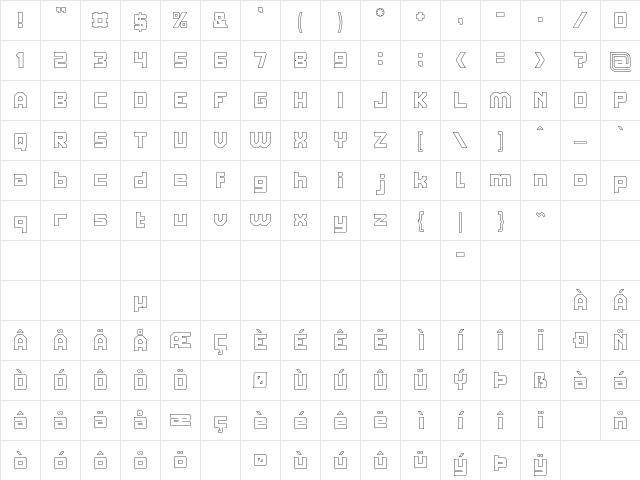
ELITE MIND-Hollow Regular
Design Context for ELITE MIND-Hollow Typeface
ELITE MIND-Hollow takes a measured approach to typography — its balanced proportions and neutral character make it a reliable workhorse for both digital and print work.